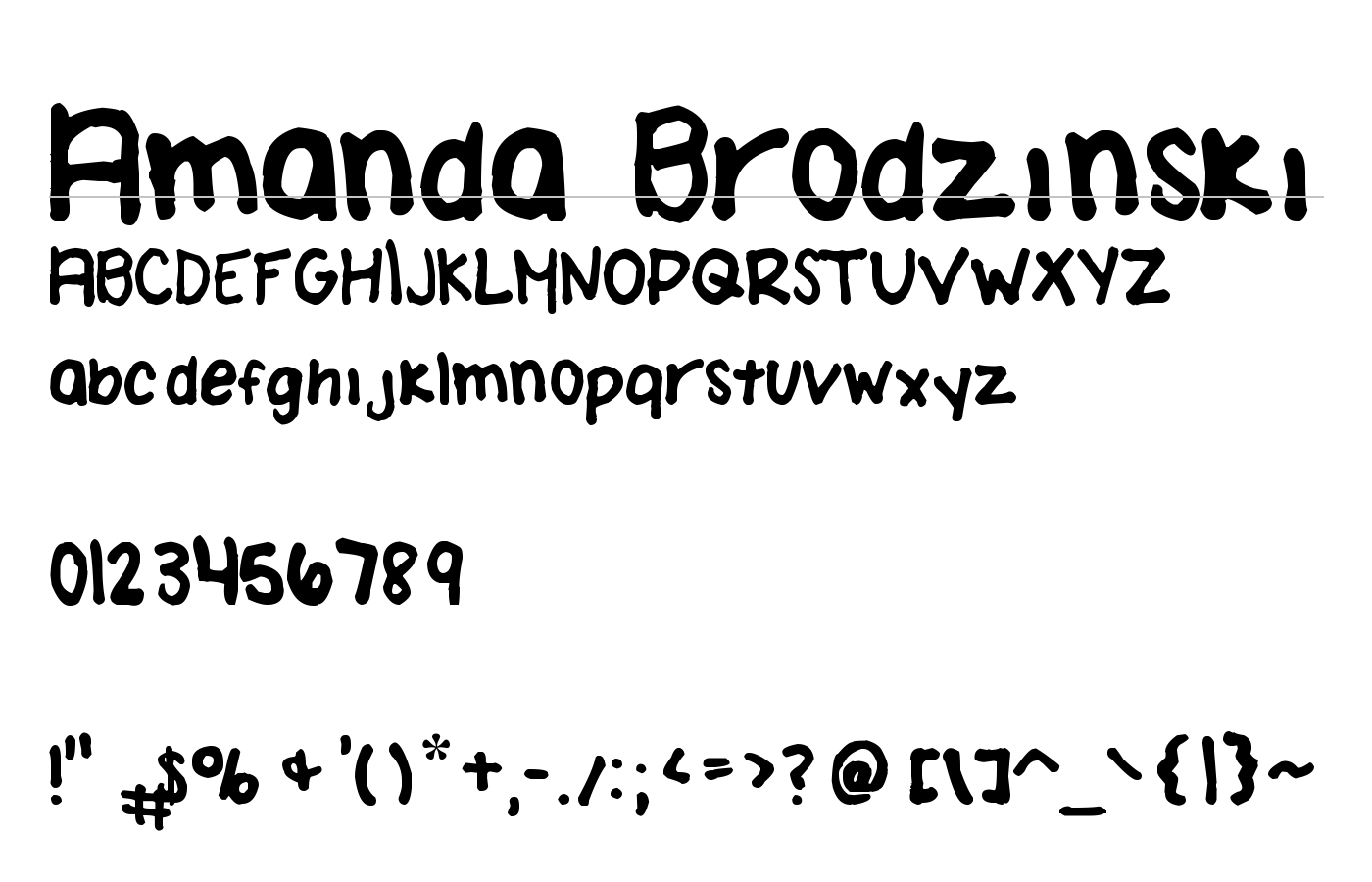
Amanda Brodzinski is a playful, hand-drawn sans serif font with a casual and friendly vibe. Its slightly irregular strokes and rounded shapes give it a warm, approachable feel, making it ideal for creative projects, informal branding, and children’s content. This font works well in headlines, logos, and packaging where a fun and personal touch is needed.
Amanda Brodzinski Font
About Amanda Brodzinski Font